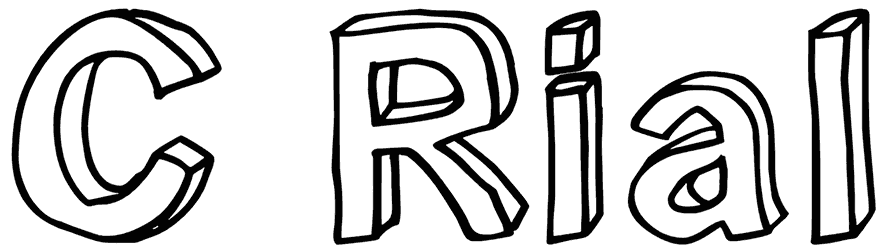
C Rial Font
Making memorable and timeless logos, book covers, posters, brochures, or magazines is not a difficult task anymore with the help of a 3D font such as C Rial that comes with hollow characters and leads to a sense of jauntiness, dynamism, innovation, or eerie. The good news about this doodle font is that it comes with two distinctive styles, thus widening your selection range.